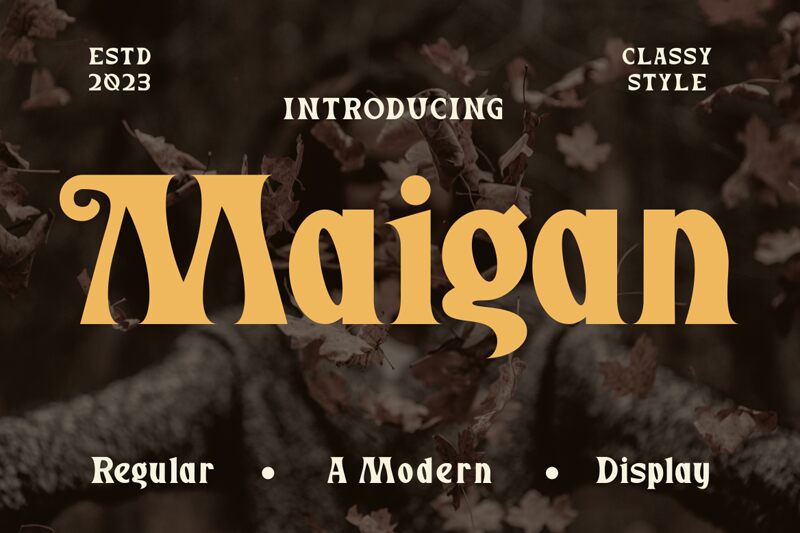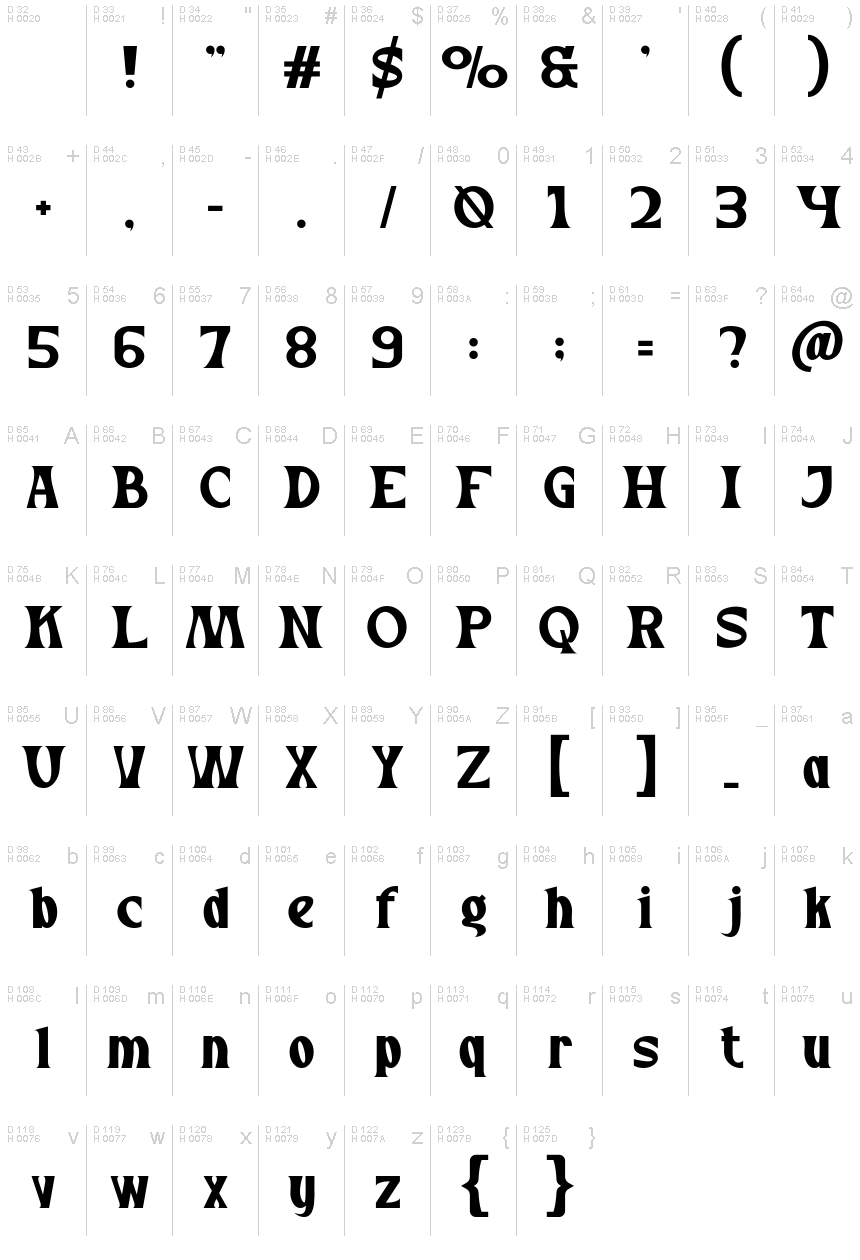
Maigan
Maigan font created by Gilang Ternadho is a display typeface that is bold and retro with a strong personality which does not fail to catch your eye. It has its characters designed of very wide curves and other unique forms, this makes it perfect for any project that requires an old-fashioned touch. The weighty lines ensure visibility even from far away making them great for headers or signs where you need something big and bold.
Whether it’s an image from the past or a present design that wants some history added into it then Maigan is both versatile and memorable as a choice. Try out your creative project today by downloading this playful typeface!